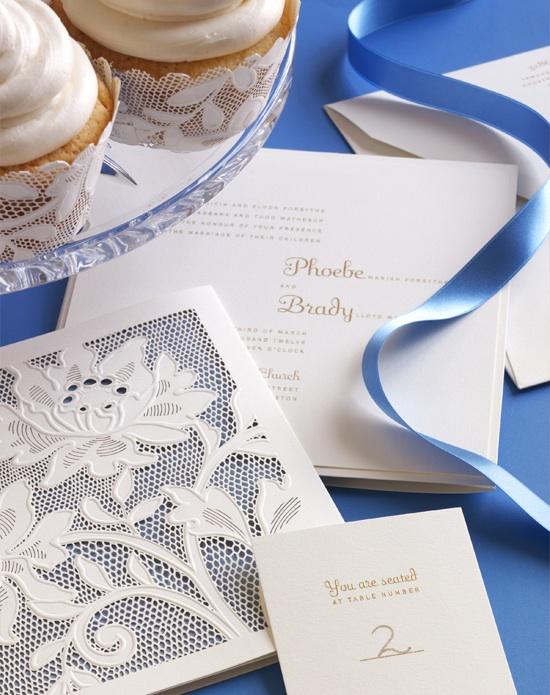
I don't know but it's super cute. Look at www.dafont.com
good luck, there are literally thousands of fonts out there in graphic design land!
could be fling font
Maybe not exactly but is very similar.
The cursive one?